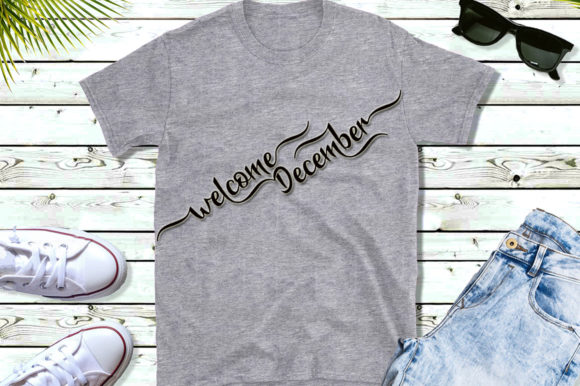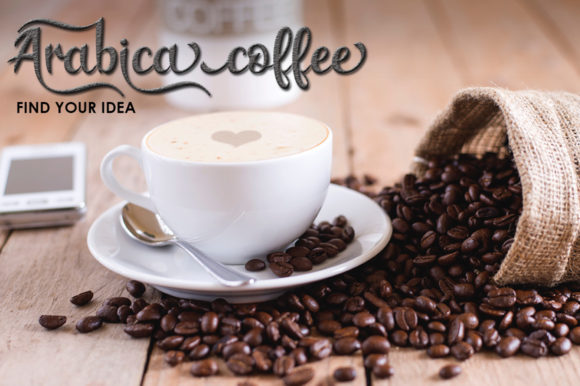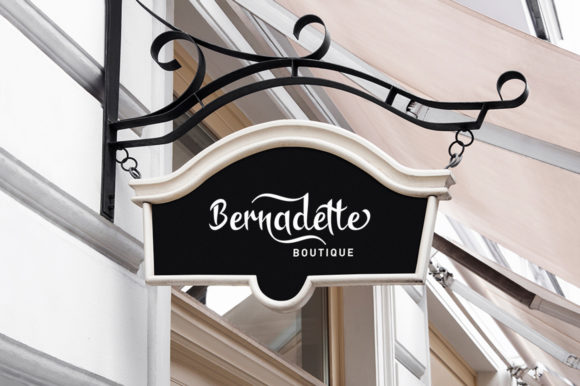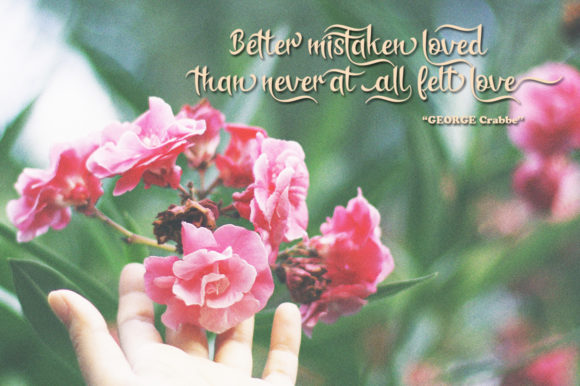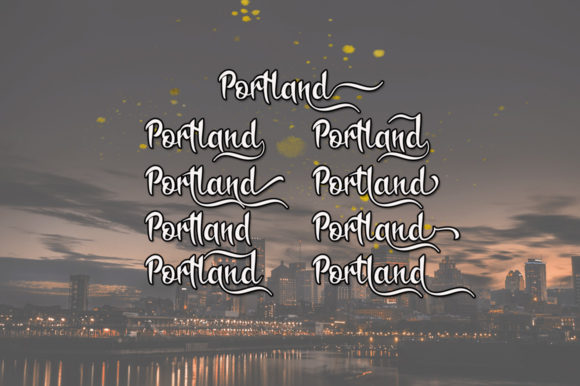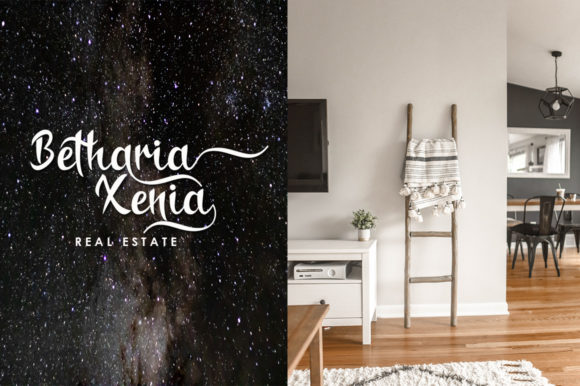
Introducing Ambrechild Script Font: The Perfect Blend of Playfulness and Elegance
In the world of typography, script fonts hold a special place for their ability to add a touch of elegance and sophistication to any design. Among these, the Ambrechild Script Font stands out for its unique blend of playfulness and refinement. This highly legible script font is designed to bring a fun and classic feel to a wide range of design projects, making it an excellent choice for creatives looking for a typeface that can effortlessly switch between playful and elegant.
What Makes Ambrechild Script Font Special?
The Ambrechild Script Font is crafted with meticulous attention to detail, ensuring that each letterform is not only aesthetically pleasing but also highly legible. This makes it perfect for use in various design applications, from digital content and branding to print materials and handmade crafts. The font’s design strikes a delicate balance between whimsy and sophistication, allowing designers to create visually appealing and engaging content.
Key Features of Ambrechild Script Font
- High Legibility: The Ambrechild Script Font is designed with clarity in mind. Its carefully crafted letterforms ensure that the text remains easy to read, even at smaller sizes.
- Playful yet Elegant: The font embodies a fun and classic feel, making it versatile enough for both playful and sophisticated designs.
- Versatility: Ambrechild Script Font can be used across a variety of platforms and design projects, including but not limited to, branding, advertising, packaging, and digital content creation.
- Unique Character: Each letter in the Ambrechild Script Font is designed to contribute to the overall charm and character of the text, ensuring that the content stands out.
Use Cases for Ambrechild Script Font
The versatility of the Ambrechild Script Font makes it suitable for a wide range of applications. Here are some scenarios where this font truly shines:
- Branding and Logo Design: The playful yet elegant nature of Ambrechild Script Font makes it an excellent choice for brands looking to establish a friendly and approachable image.
- Wedding and Event Invitations: For those looking to add a touch of whimsy and romance to their wedding or event invitations, Ambrechild Script Font is a perfect choice.
- Digital Content: Bloggers, influencers, and content creators can use Ambrechild Script Font to add personality to their digital content, making it more engaging for their audience.
- Crafting and DIY Projects: Crafters and DIY enthusiasts can use this font for a variety of projects, such as handmade cards, journaling, and decorative signs, to add a personal touch.
Tips for Using Ambrechild Script Font Effectively
To make the most out of the Ambrechild Script Font, consider the following tips:
- Pair with Complementary Fonts: For maximum impact, pair Ambrechild Script Font with sans-serif fonts to create a balanced and visually appealing design.
- Adjust Letter Spacing: Slightly adjusting the letter spacing can enhance the readability of the font, especially in larger blocks of text.
- Use in Headings and Subheadings: Utilize Ambrechild Script Font for headings and subheadings to draw attention and add personality to your content.
The Ambrechild Script Font is a versatile and charming typeface that can elevate a wide range of design projects. Its unique blend of playfulness and elegance makes it an excellent choice for designers and crafters looking to add a personal touch to their work. Whether you’re creating a brand identity, designing event invitations, or working on crafting projects, Ambrechild Script Font is sure to bring a touch of sophistication and whimsy to your designs.
With its high legibility, classic feel, and the ability to convey both playfulness and elegance, the Ambrechild Script Font is a valuable addition to any designer’s toolkit. So, why settle for ordinary when you can add a touch of extraordinary to your designs with Ambrechild Script Font?